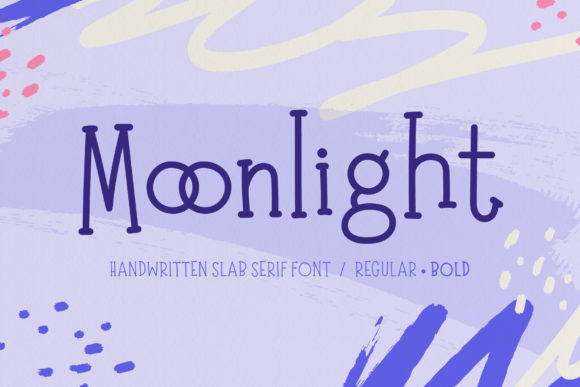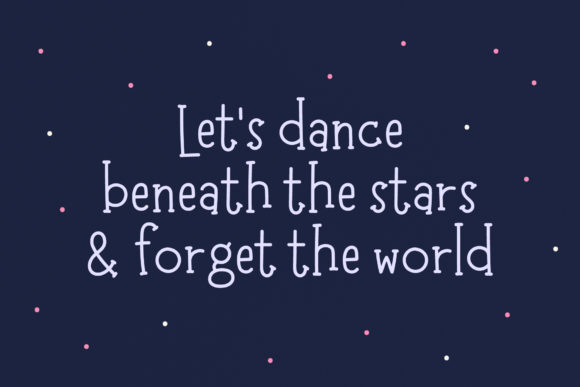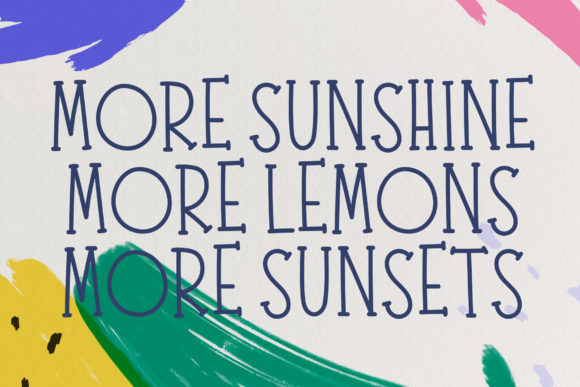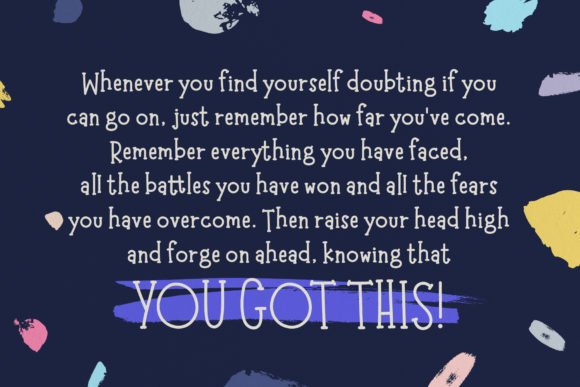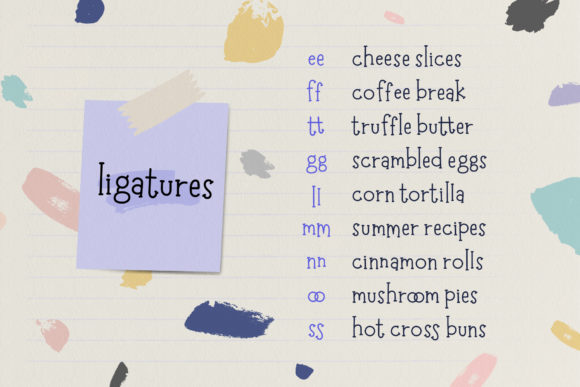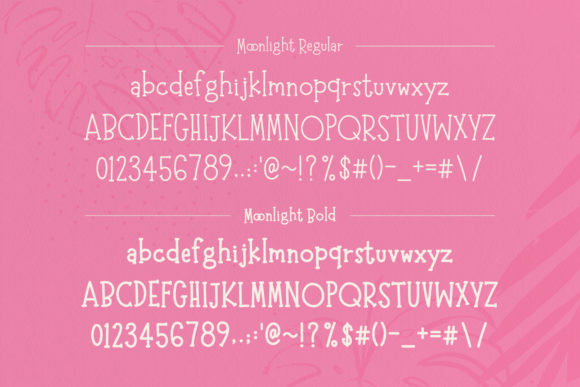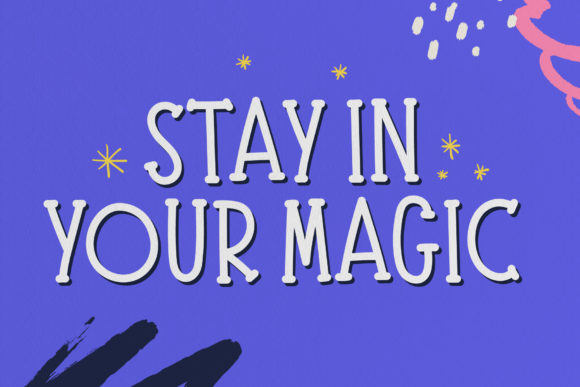
Moonlight Font
About Moonlight Font
Moonlight is a modern handwritten slab serif font that comes in 2 font weights – Regular & Bold. This bouncy, adorable font is perfect for cutting, t-shirts, party invitations, social media posts, and much more.